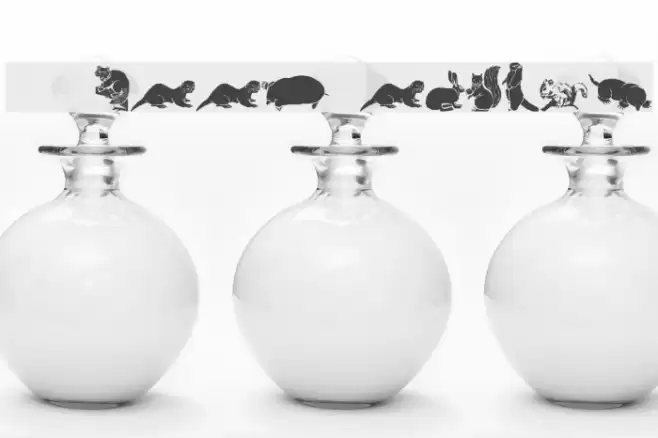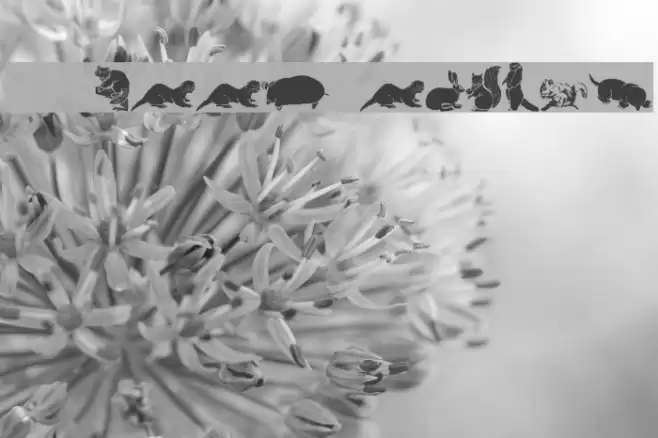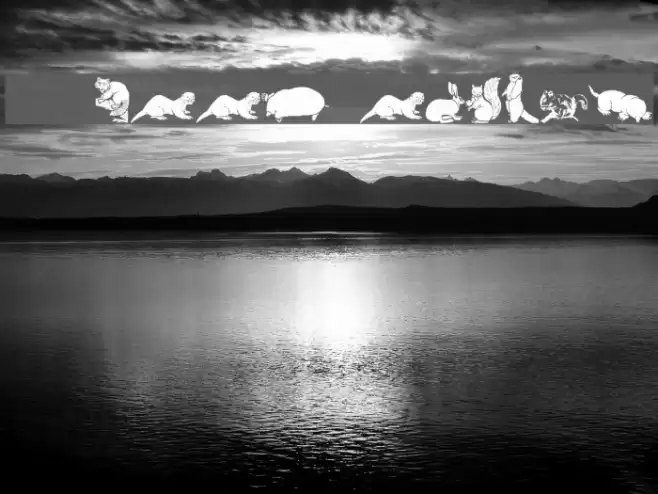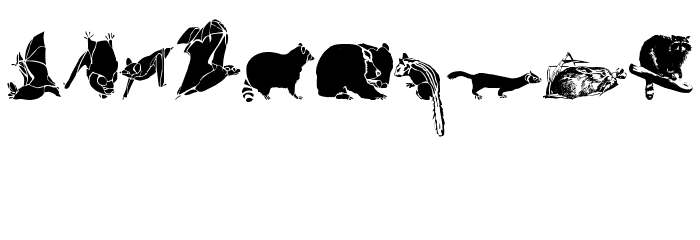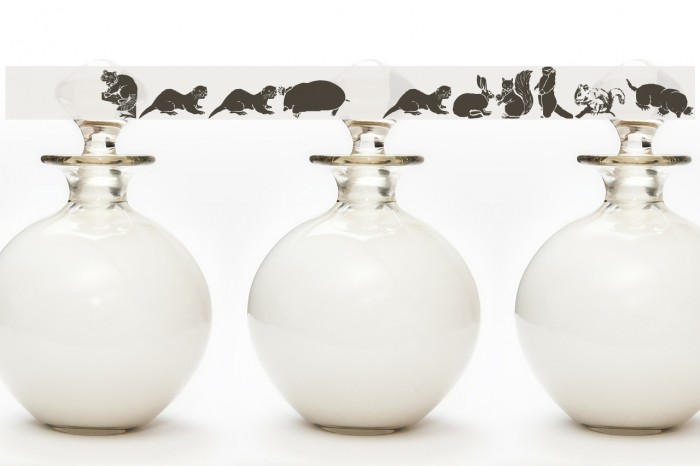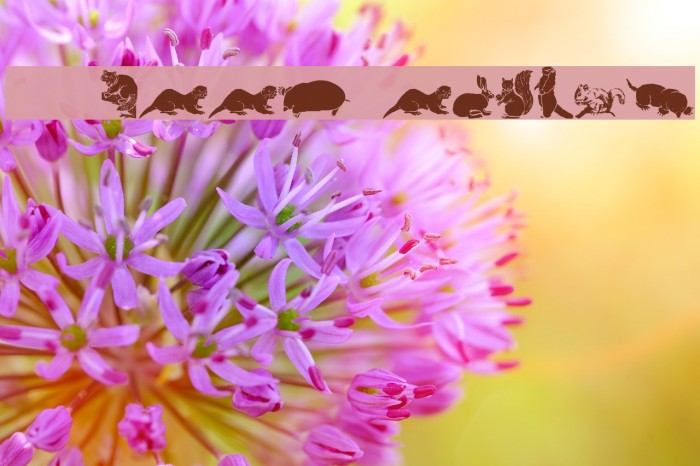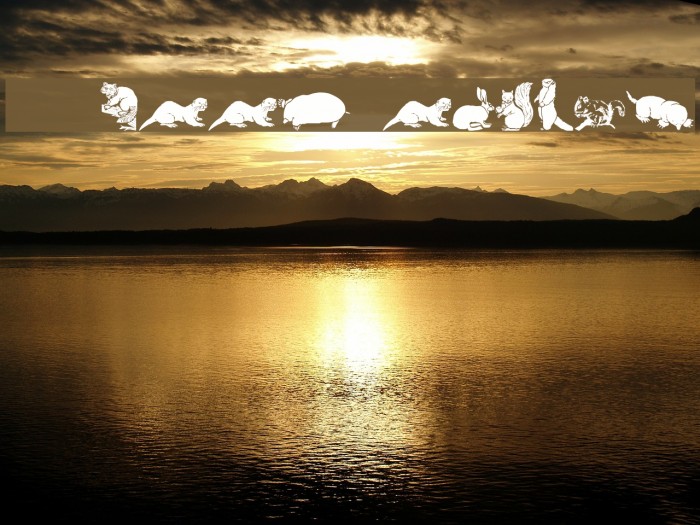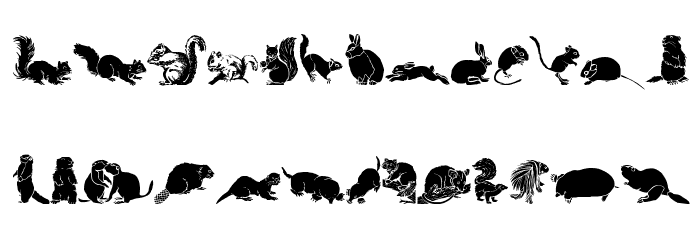
WWFurryFriends Font
WWFurryFriends Description
A decorative display font composed of detailed black-and-white animal silhouettes, each character represented by a different small mammal or rodent in various poses. The glyphs are highly illustrative and lack traditional typographic features, focusing instead on animal shapes.
Animal silhouette font with each character as a unique mammal illustration from Dingbats fonts.
- Proposed Projects: Children’s books, educational posters, animal-themed branding, playful invitations, wildlife awareness campaigns.
- Overall Style: Decorative, Playful, Thematic
- Use Case: Logos, Posters, Headlines, Themed graphics